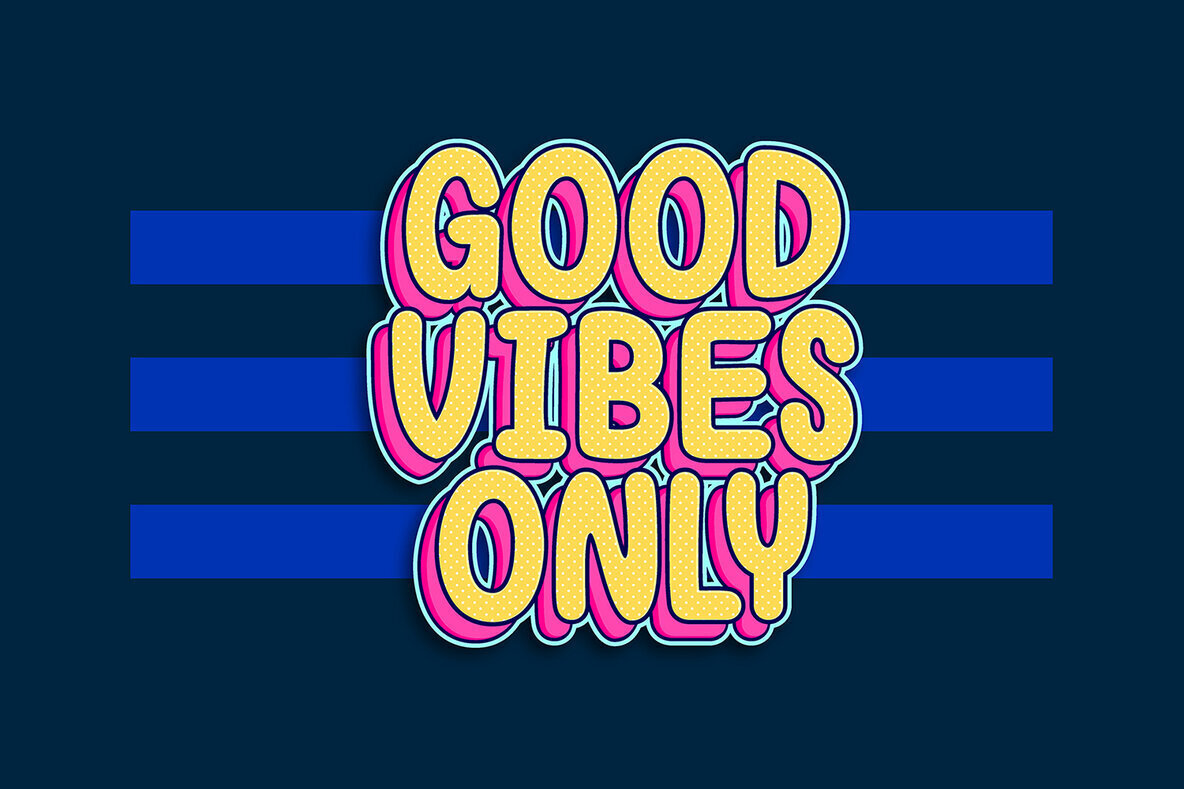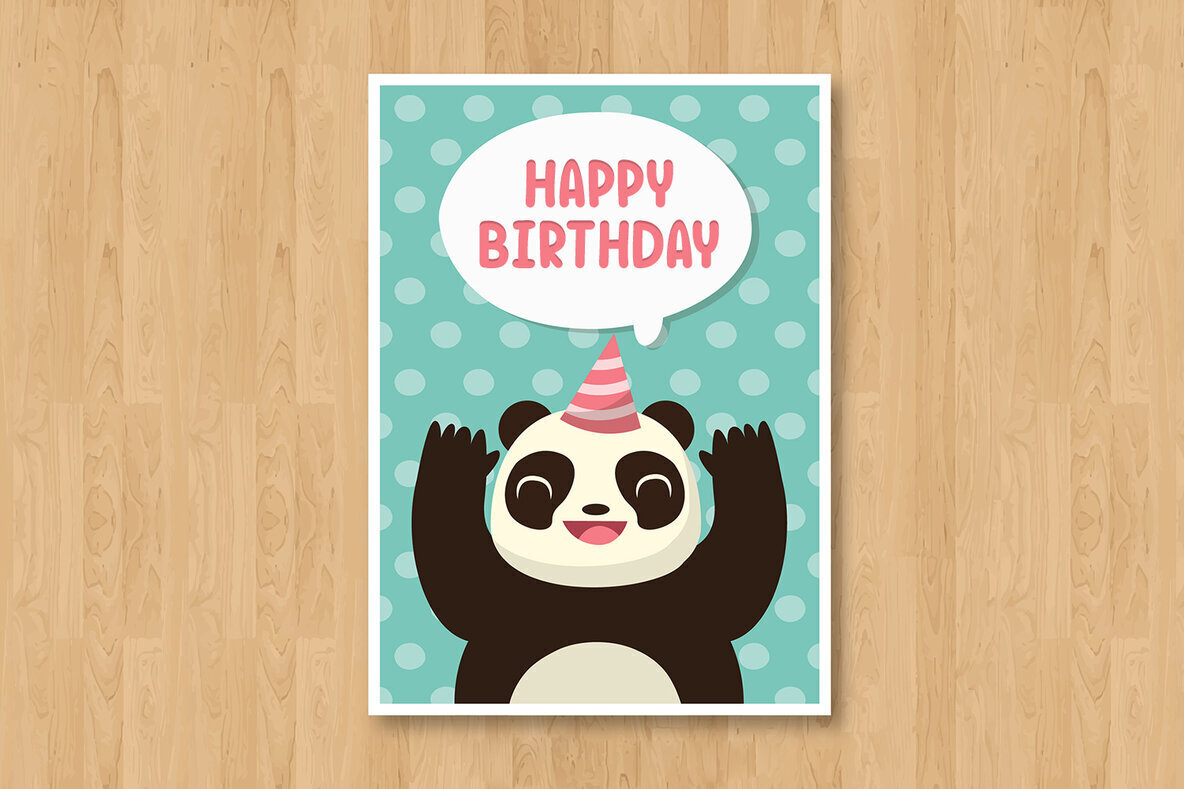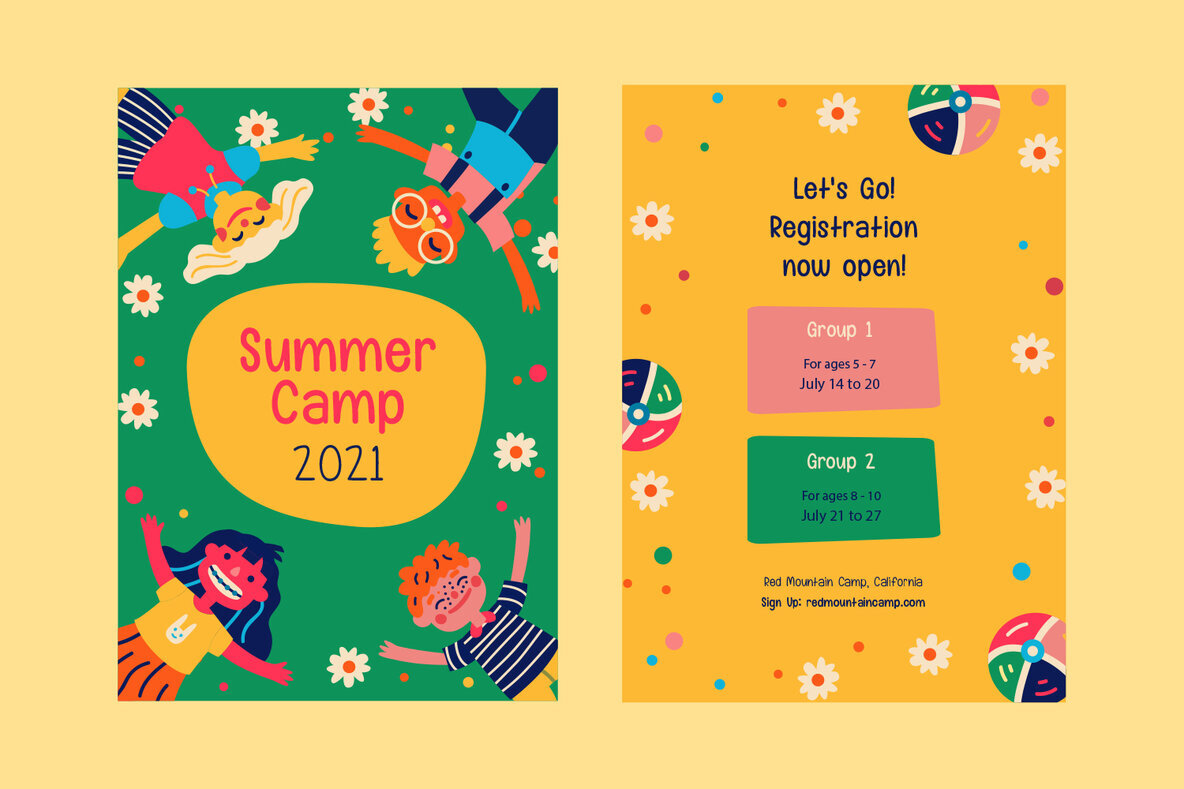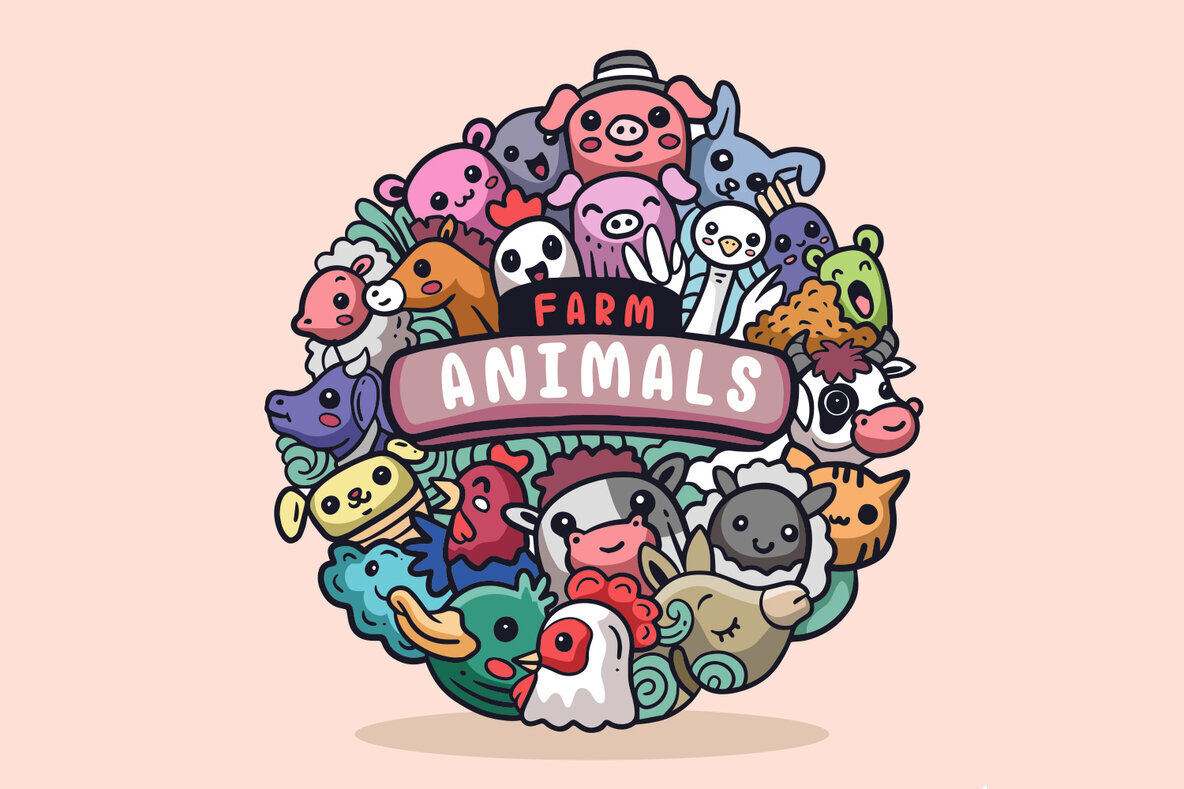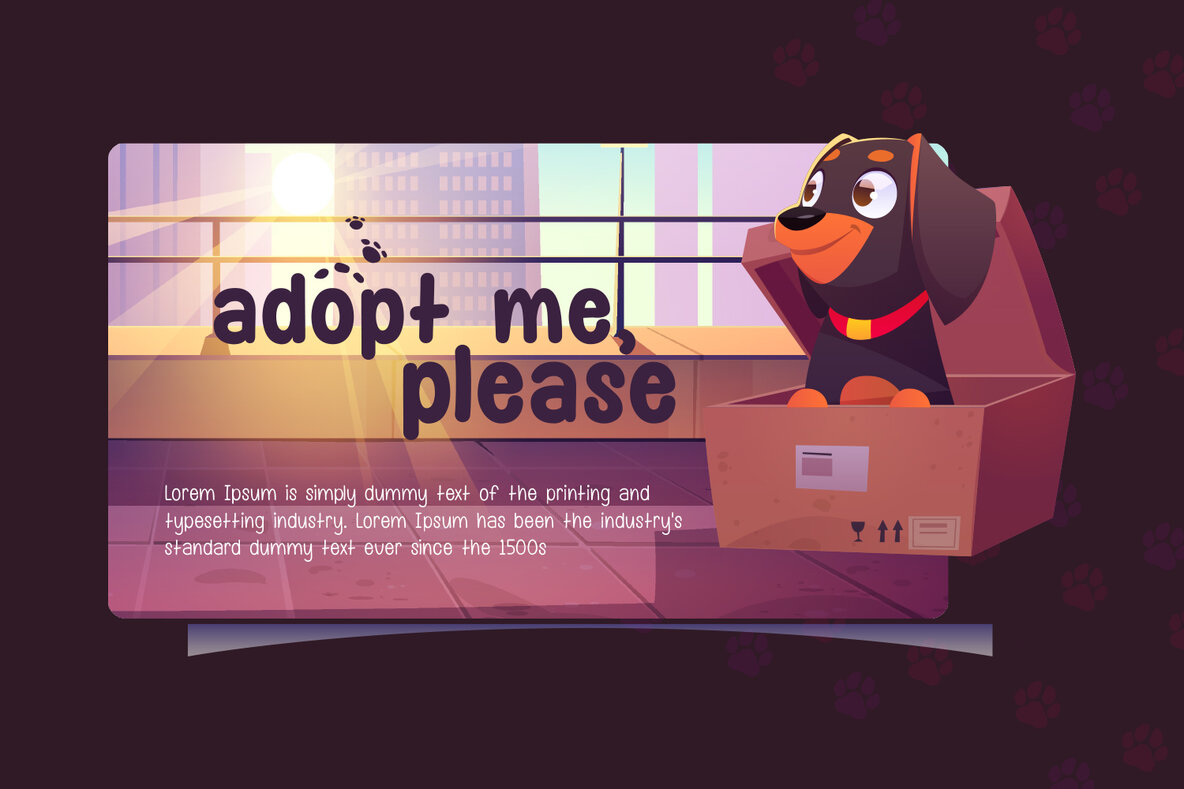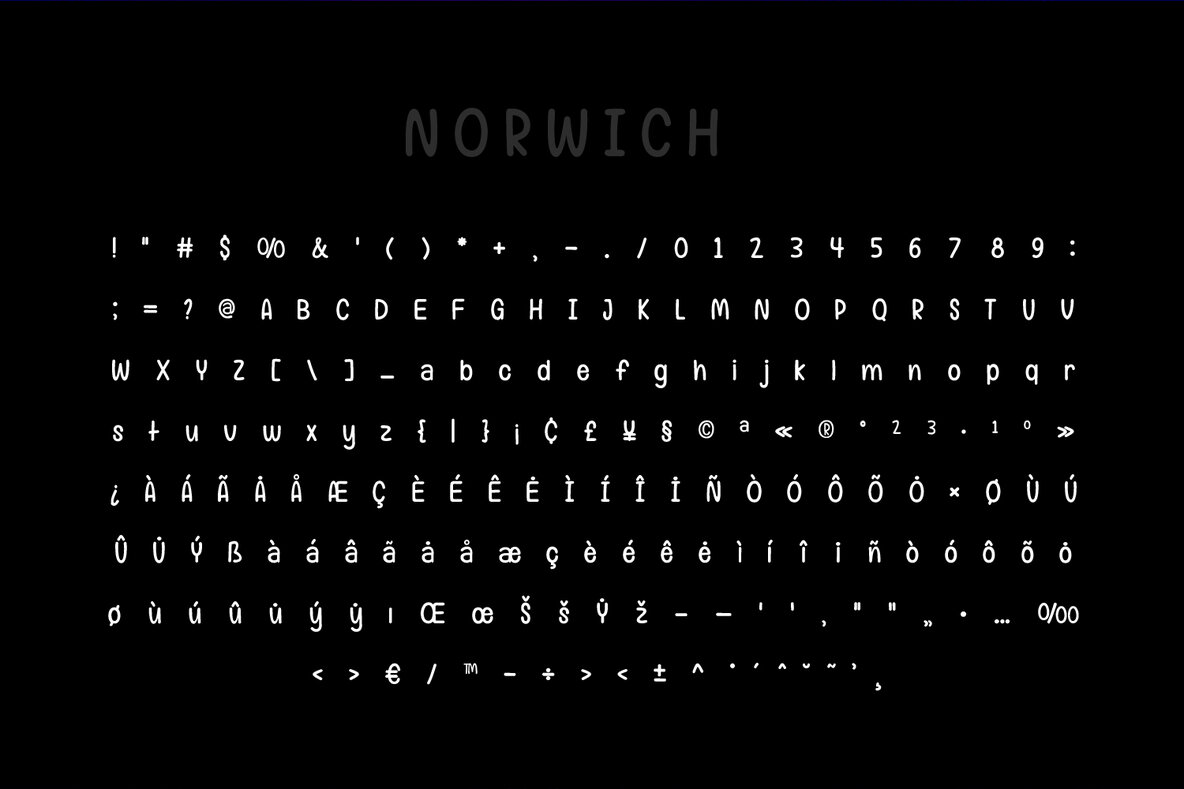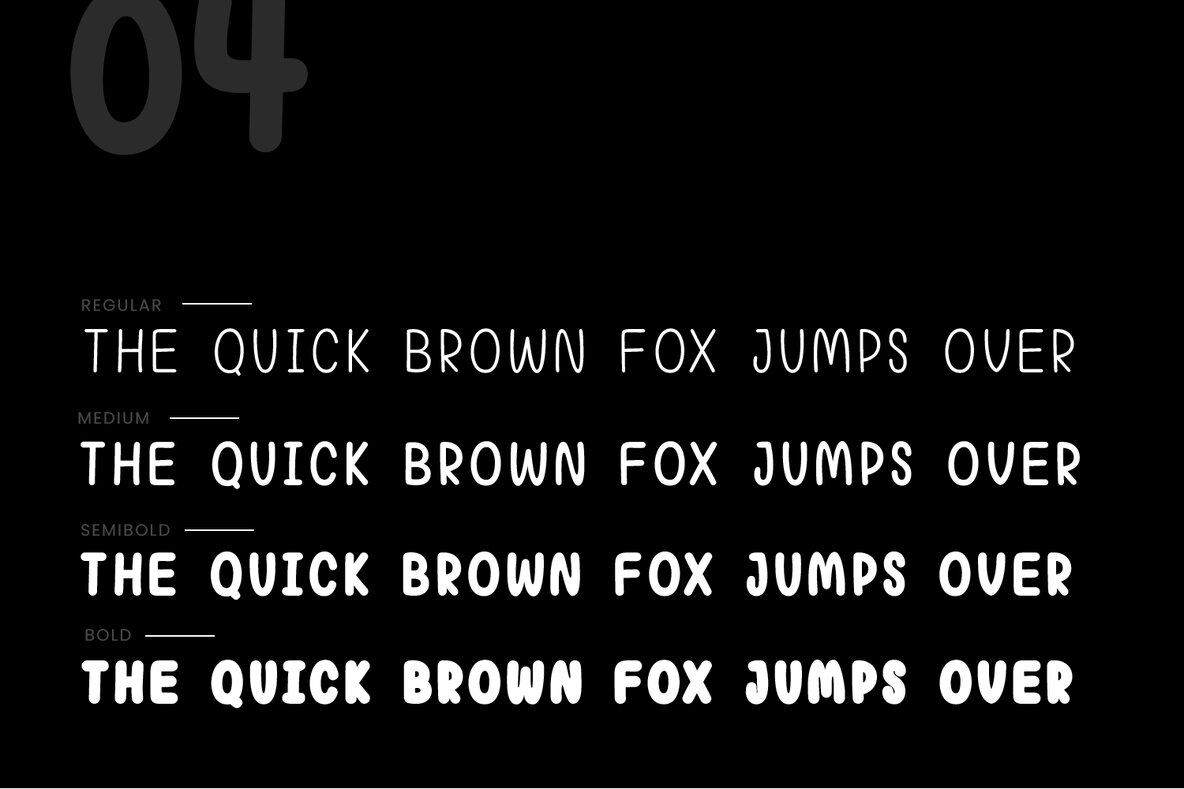
Norwich Typeface Font
The Norwich Typeface by FoxType Co is a fresh take on elegant letterforms, blending vibrant, bubbly aesthetics with a reliable font family. Its meticulously crafted style, featuring controlled letterforms and modern accents, makes it a standout choice for comedic artwork and animated visuals. Whether you are designing for children's crafts, comic posters, or captions, Norwich adds a playful touch without compromising beauty or readability.Norwich Typeface: Playful Elegance in Typographic Design